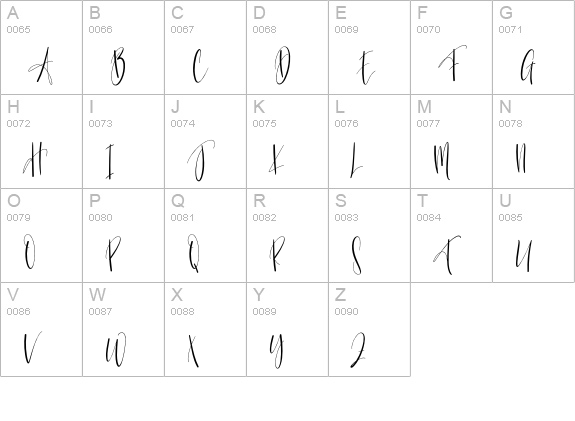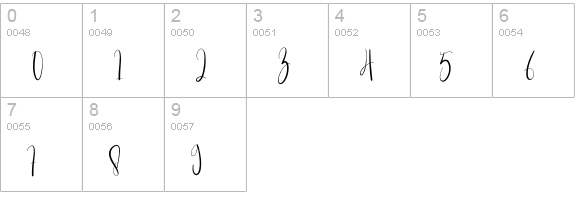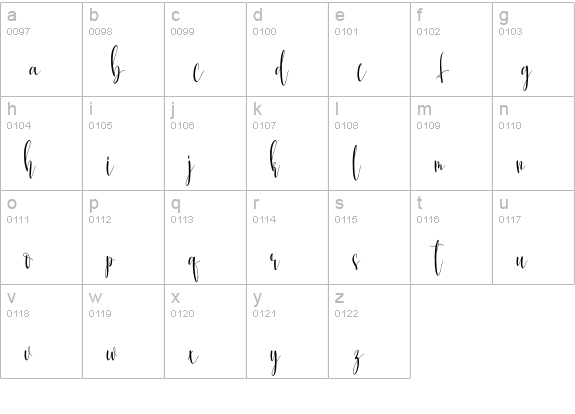
Hellonita Font Details
Hellonita is a free for personal use font in the Script > Handwritten category, designed by scratchones. It has been downloaded 2 times and is available for Windows, Mac and Linux.
Introducing Hellonita font, a stylish and modern typeface that is perfect for a wide range of design projects. With its sleek lines and elegant curves, Hellonita adds a touch of sophistication to any design. Whether you're creating a logo, branding materials, or a website, this versatile font is sure to make a statement.